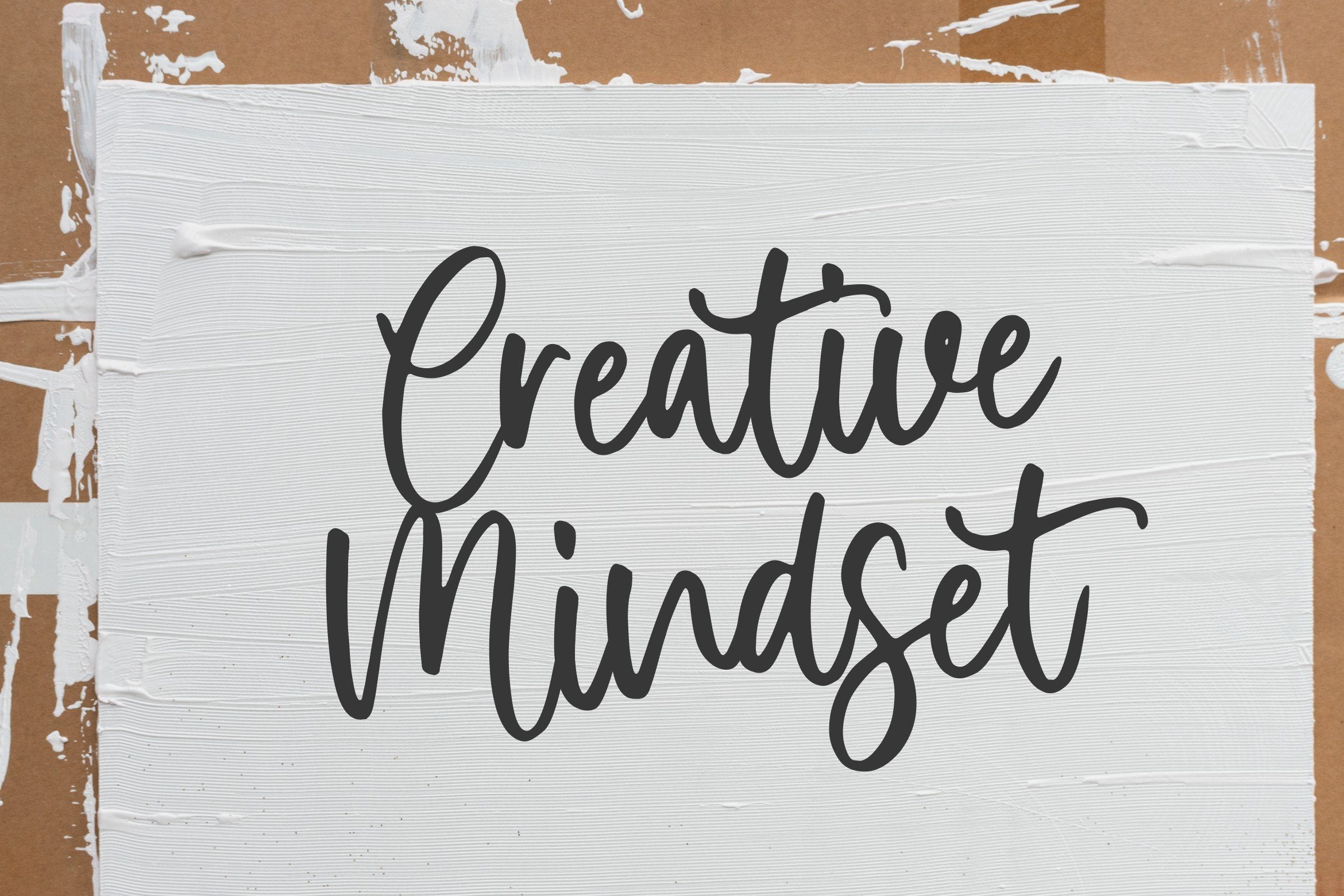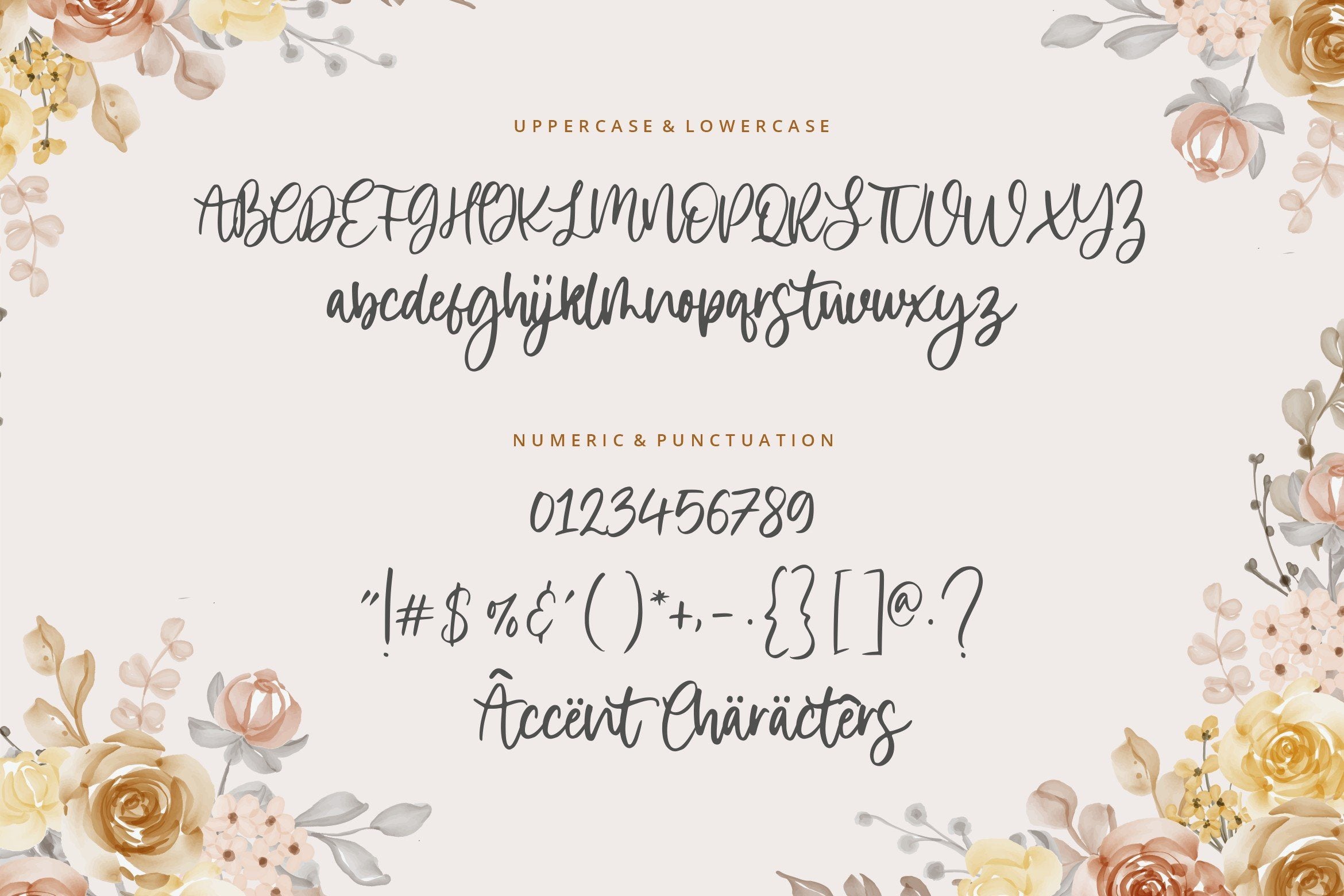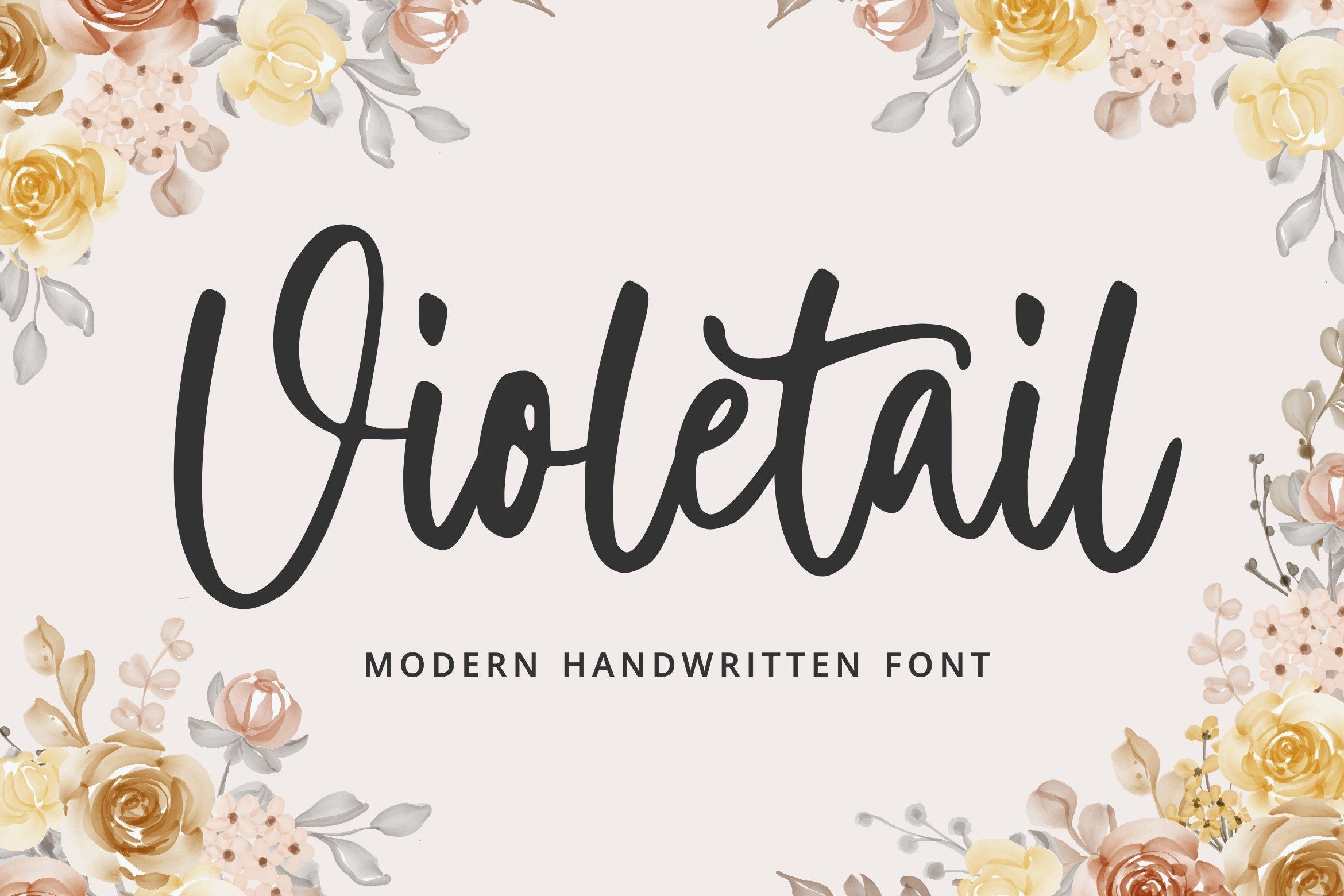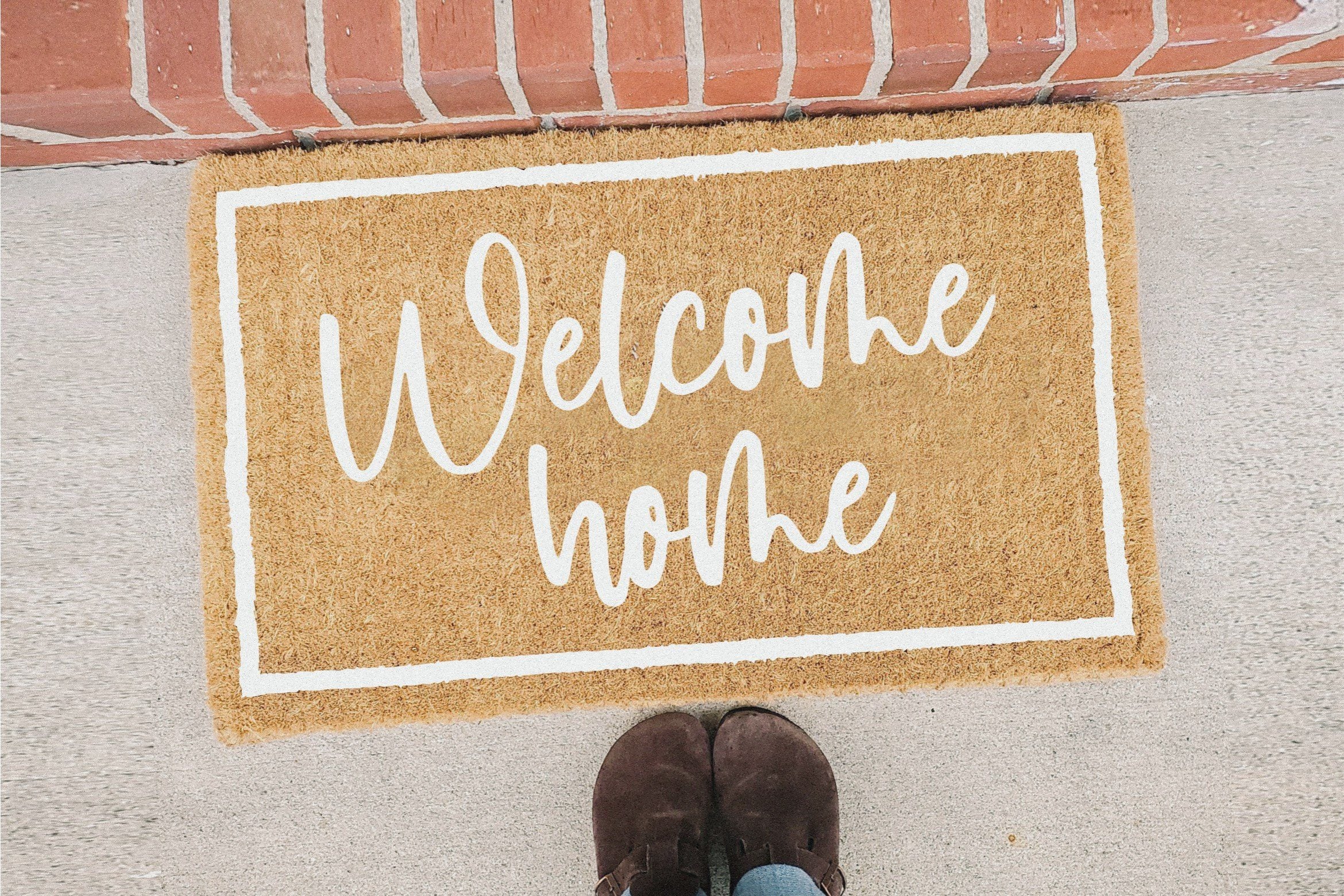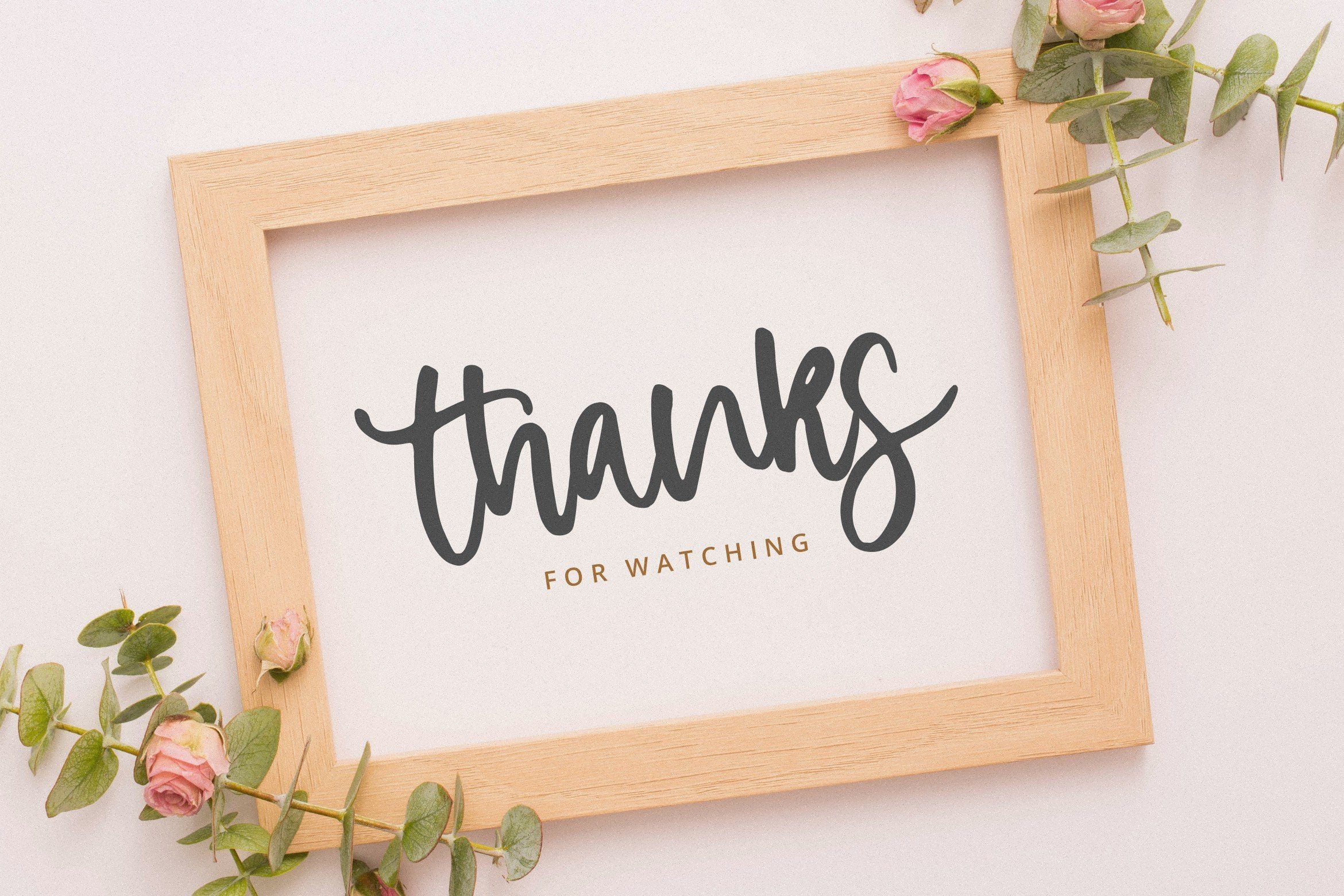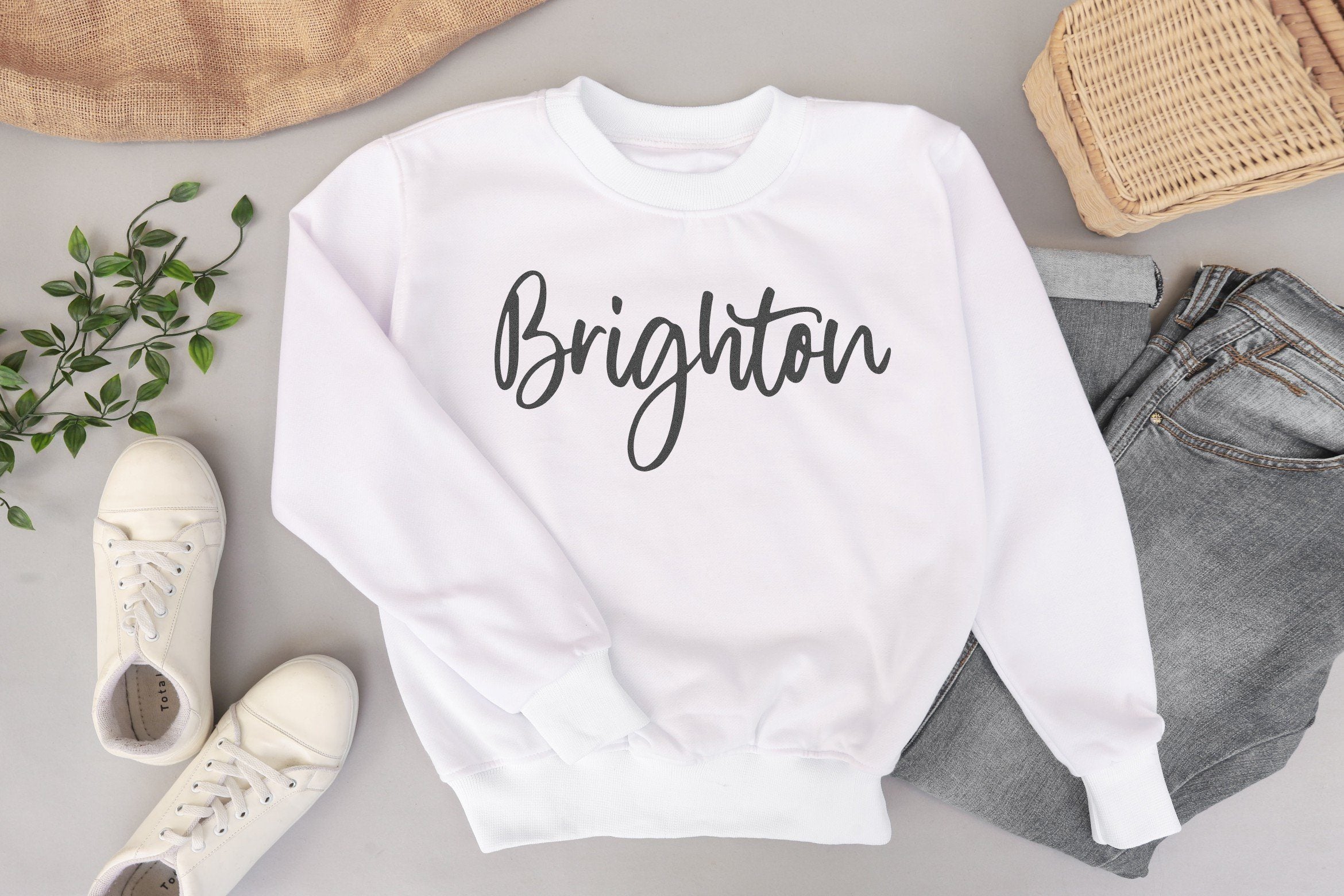
Violetail Modern Handwritten Font
About Violetail Modern Handwritten Font
Introducing by Balpirick Studio. Proudly Present, Violetail Font. Violetail is a Modern Handwritten Font. Violetail Modern is an elegant and dainty handwritten font that features sweet and delicate swashes. This original look will appeal to a wide range of crafty ideas, from letterheads and titles, to stationery. This font includes TTF, OTF and WOFF, Violetail also multilingual support. Enjoy the font, feel free to comment or feedback, send me PM or email. Thank you!